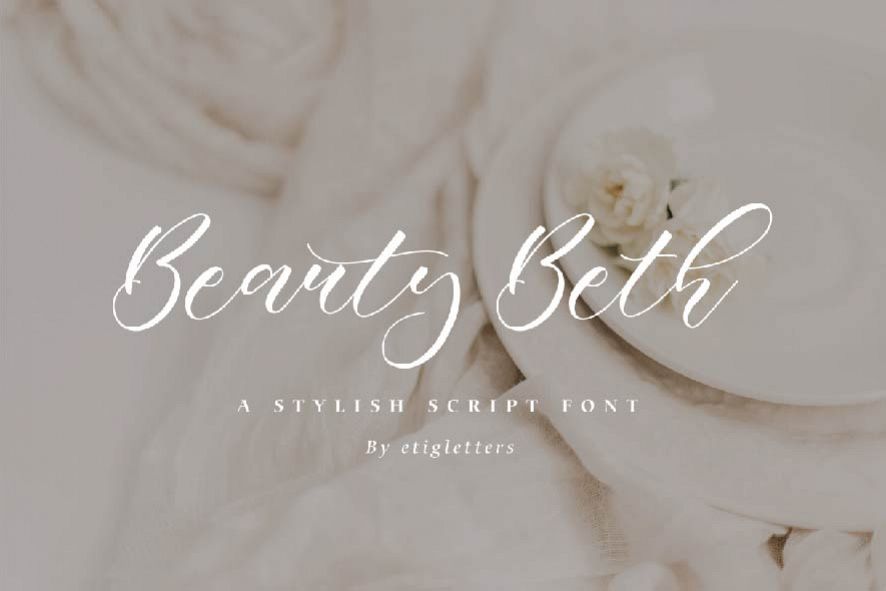
Beauty Beth
Beauty Beth is a stylish script font.
It can be used for wedding invitations, business card, poster design, t-shirt designs, magazine design, greetings cards, and much more